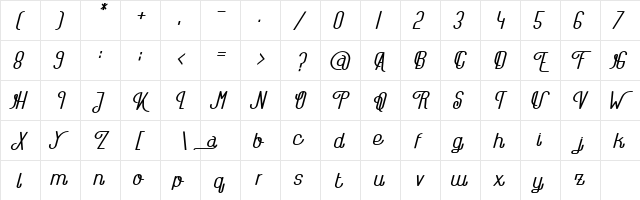
The Athletica Regular
Design Context for The Athletica Typeface
The Athletica has the bold swagger of sports branding: strong, assertive letterforms designed to dominate headlines and jerseys alike.
Built for sports team identities, athletic apparel, event posters, and high-energy promotional material.
Font Pairing: Use alongside a condensed or geometric sans for supporting copy — keep the pairing bold, functional, and free of ornament.
Pro Tip: The Athletica thrives on contrast — try it large, bold, and tight against a clean background for maximum visual impact.